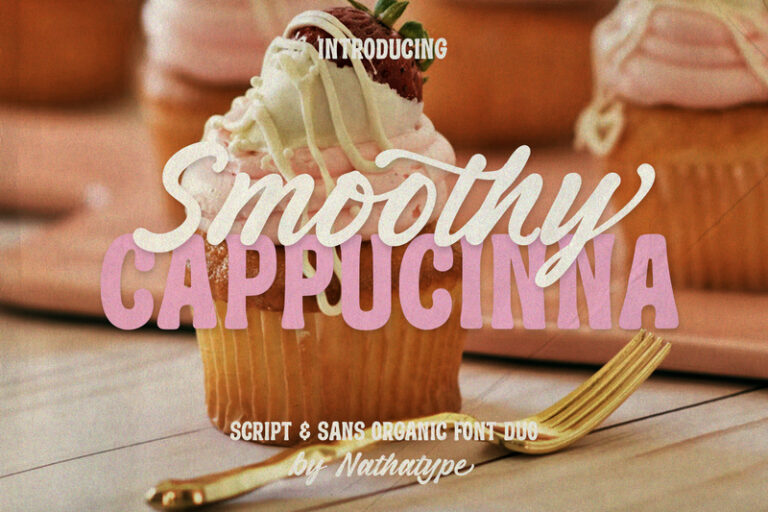
Smoothy Cappuccinna is a stylish font duo that blends the warmth of script with the confidence of bold sans serif design. This elegant pairing includes a smooth, flowing script font inspired by natural handwriting and uppercases sans serif font crafted with a fairly bold weight for strong, balanced contrast. Together, they create the perfect harmony of softness and structure, making your typography look effortlessly modern and beautifully cohesive. In addition, enjoy the features here.
- Ligatures
- Stylistic Sets
- Multilingual Supports
- PUA Encoded
- Numerals and Punctuations
Smoothy Cappucinna fits in branding, packaging, quotes, invitations, logos, posters, and many more designs. Find out more ways to use this font by taking a look at the font preview.